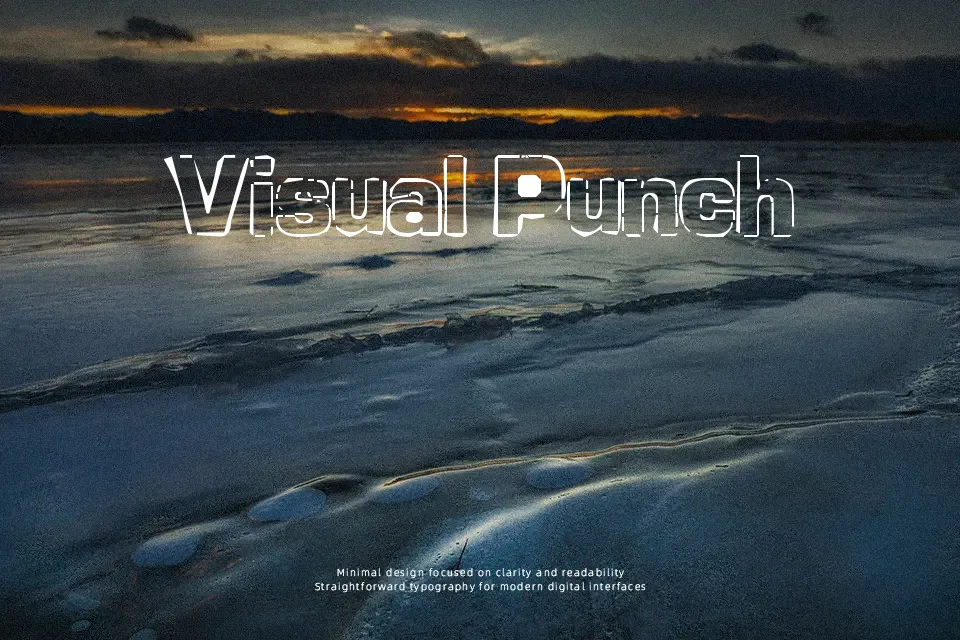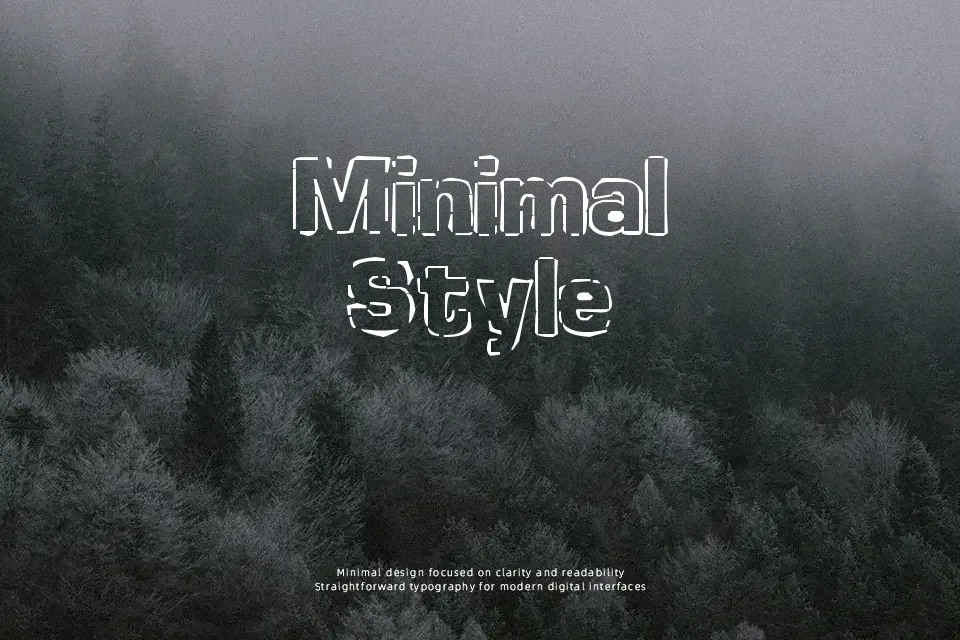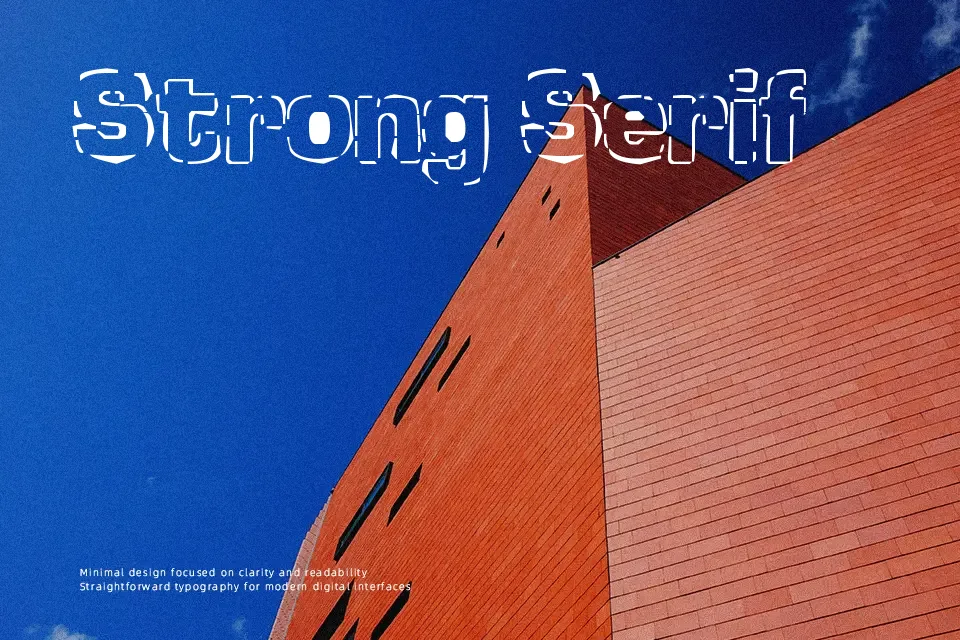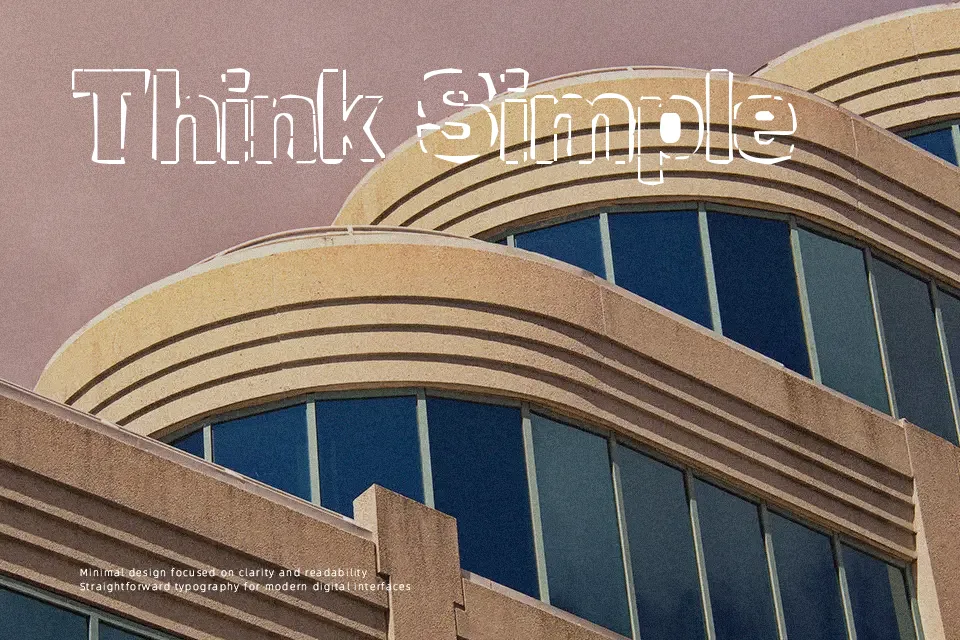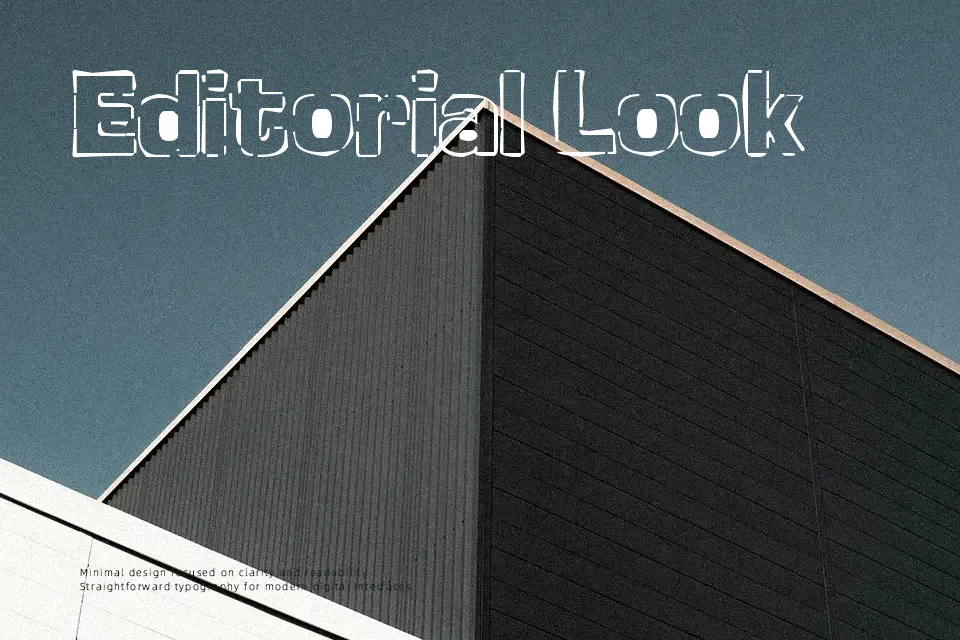
Newstile Font
Designed by Angela Green
Newstile Font features a structured, grid-based aesthetic defined by modular square components, uniform stroke weights, and segmented contour lines. Spacing between individual glyphs remains moderately wide, maintaining silhouette integrity across capital letters and numerical forms. The typeface delivers strong visual impact when applied to music festival banners, arcade gaming graphics, and creative package titling. However, the intricate modular gaps and decorative complexity reduce letter recognition in continuous reading environments. Small captions may lose clarity when scaled down significantly. For large-scale headline applications, the design offers a crisp, mosaic-like rhythm that ensures standout visual personality.
Best For: arcade gaming graphics, music festival posters, creative product packaging, large headline signage
Not Ideal For: continuous body text, mobile application menus, dense corporate reports, small captions
Perfect for gaming, headline, and logo, with a bold and decorative style.